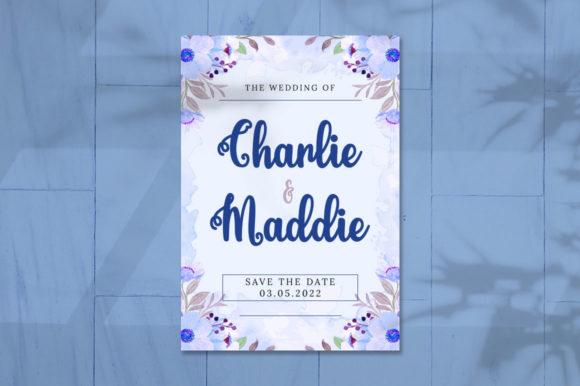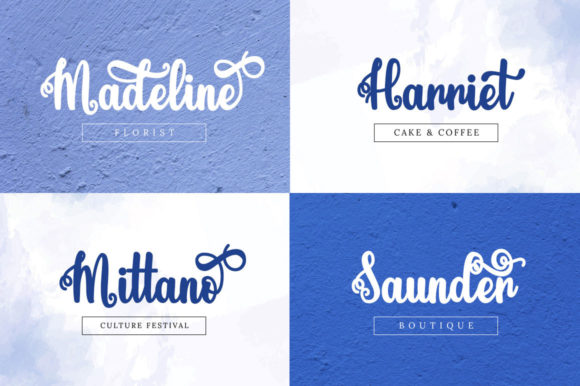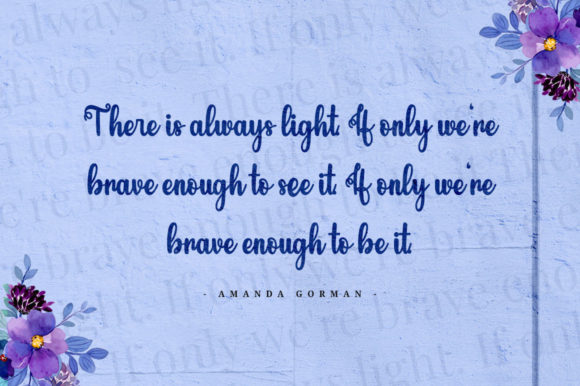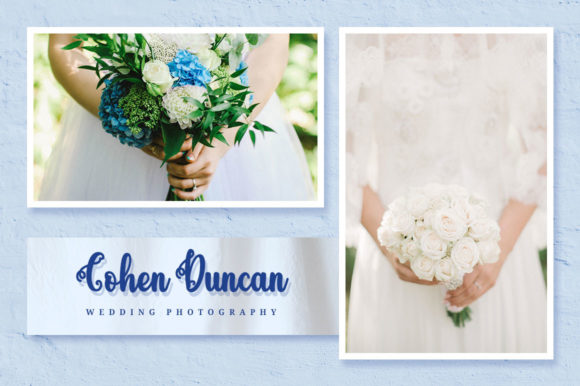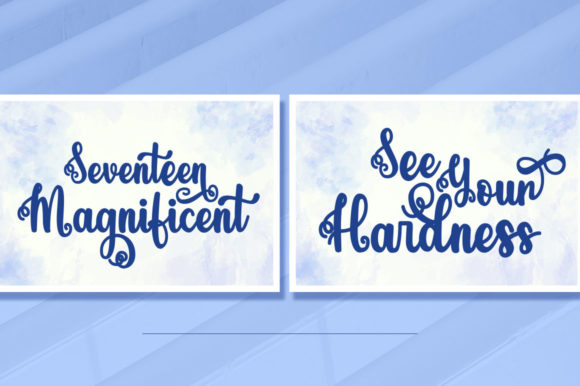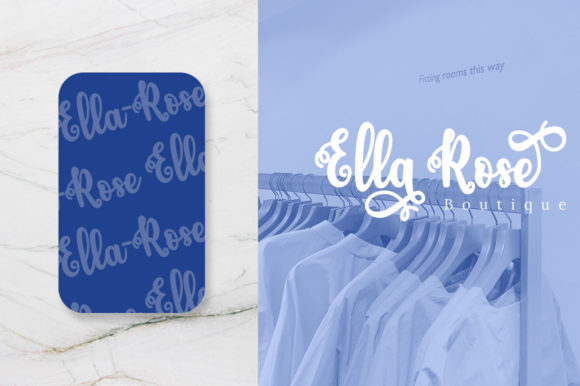
The Amadona Font: A Romantic Gem for Designers and Crafters
I’ll never forget the time I was working on a wedding invitation project, and I just couldn’t seem to find the perfect font. The client wanted something elegant, yet playful, and I was determined to deliver. That’s when I stumbled upon the Amadona font, and it instantly became my go-to choice. In this article, I’ll share my experience with this beautiful font, its features, and how to make the most of it in your designs.
An Honest Review of Amadona Font
So, what makes Amadona font so special? Here are some things I love about it:
- ✨ Romantic and elegant: Amadona font is perfect for creating romantic designs, such as invitations, souvenirs, or wedding materials.
- ✅ PUA encoded: This means you can access all glyphs and swashes with ease, making it a breeze to customize your designs.
- 💕 Beautiful swashes and glyphs: The font comes with a range of swashes and glyphs that can add a touch of elegance to your designs.
While Amadona font is amazing, there are a few small quirks to keep in mind:
- 🤔 Limited use in non-romantic designs: While Amadona font is versatile, it may not be the best choice for non-romantic designs, such as tech or business-related projects.
The Backstory of Amadona Font
The Amadona font was designed with love and care by a talented type designer who wanted to create a font that would evoke feelings of romance and elegance. The designer’s inspiration came from traditional calligraphy and hand-lettering, combined with modern digital techniques. The result is a beautiful, unique font that’s perfect for designers and crafters looking for a special touch.
| Font Name | Amadona Font |
| What is the Amadona font best used for? | The Amadona font is perfect for romantic designs, such as invitations, souvenirs, and wedding materials. |
| Is the Amadona font PUA encoded? | Yes, the Amadona font is PUA encoded, making it easy to access all glyphs and swashes. |